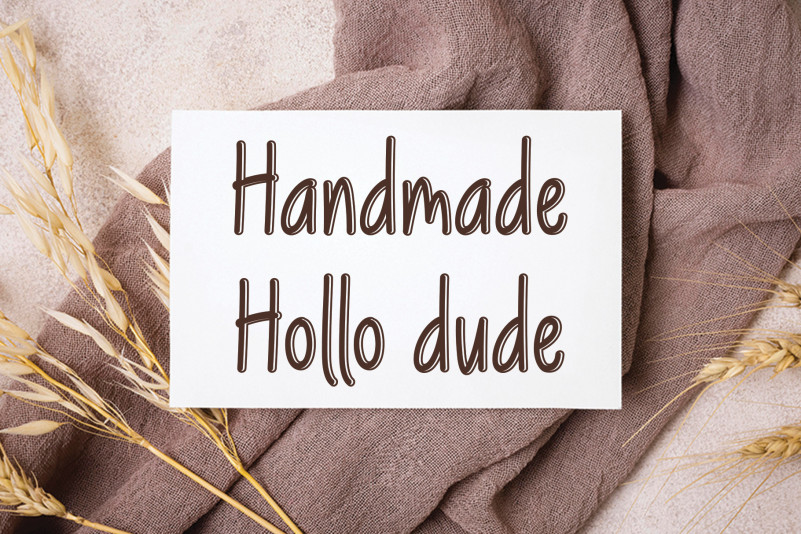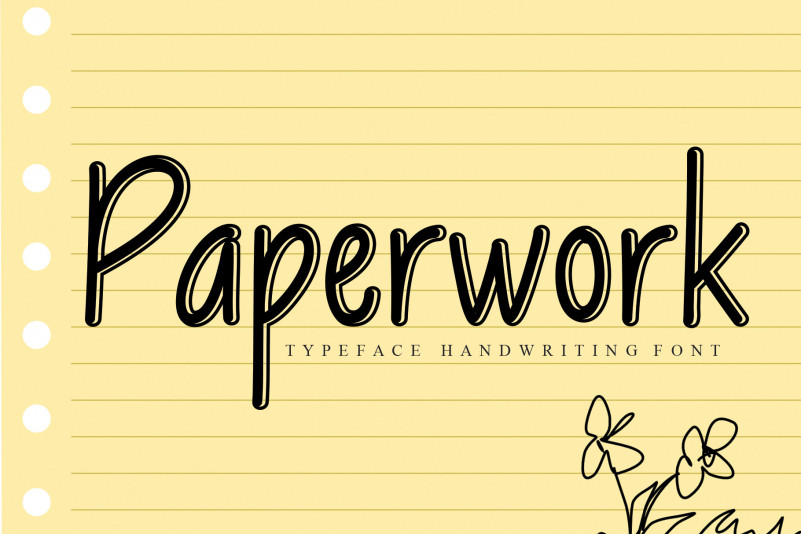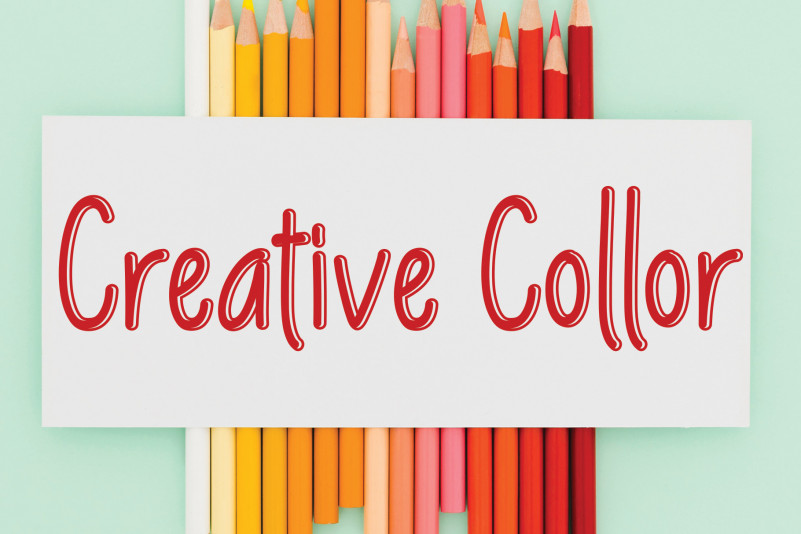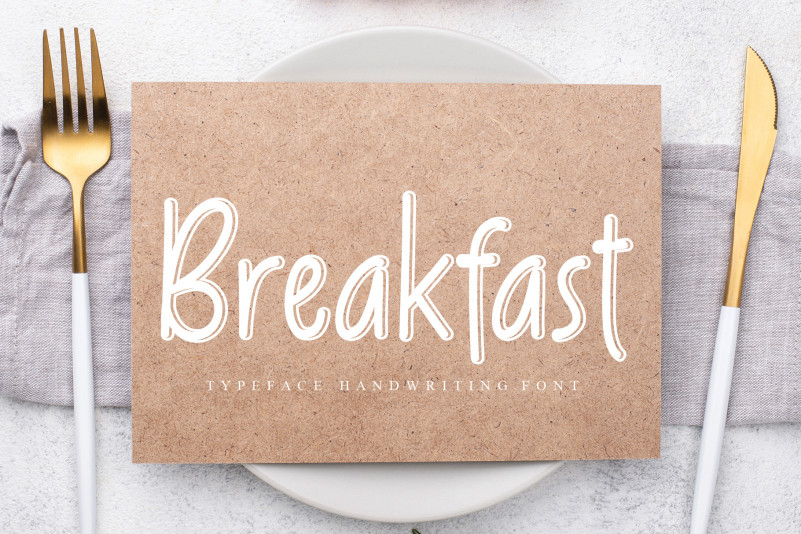
Amsterdam Display Font
Amsterdam Display Font is a casual handwritten font. This font is the perfect font for making original and outstanding designs.